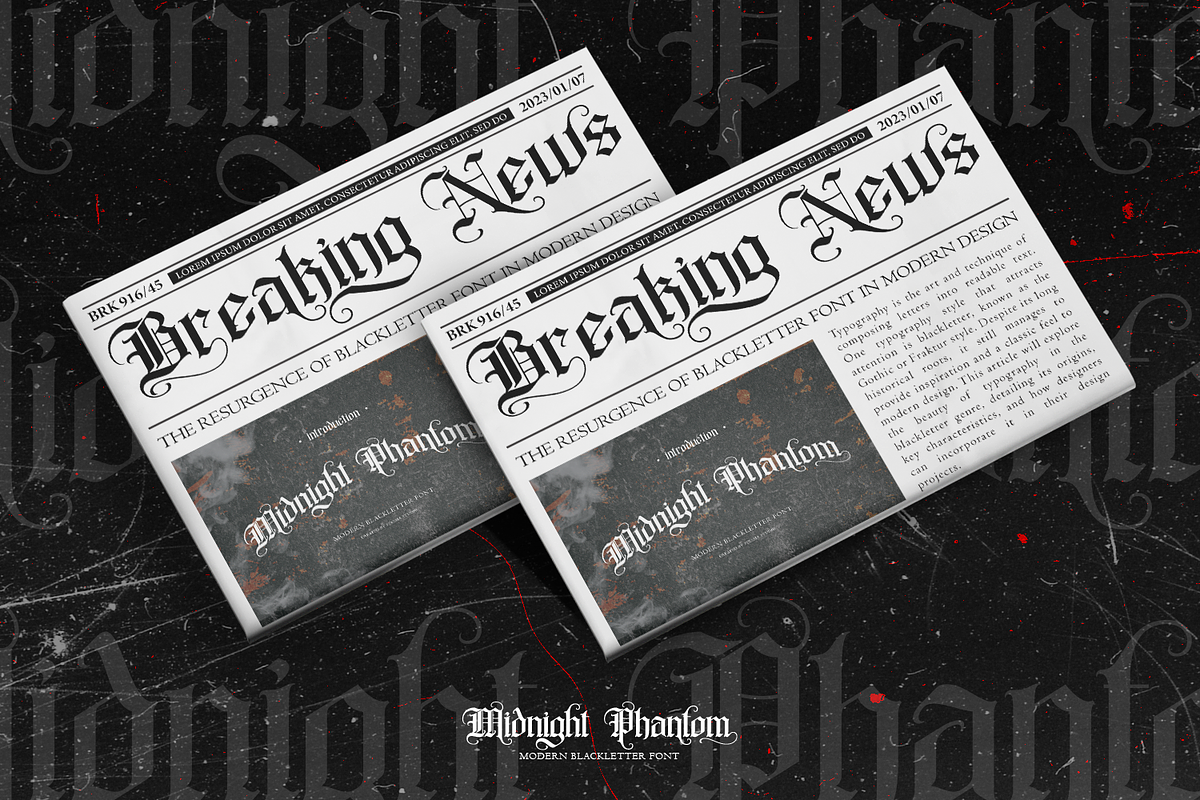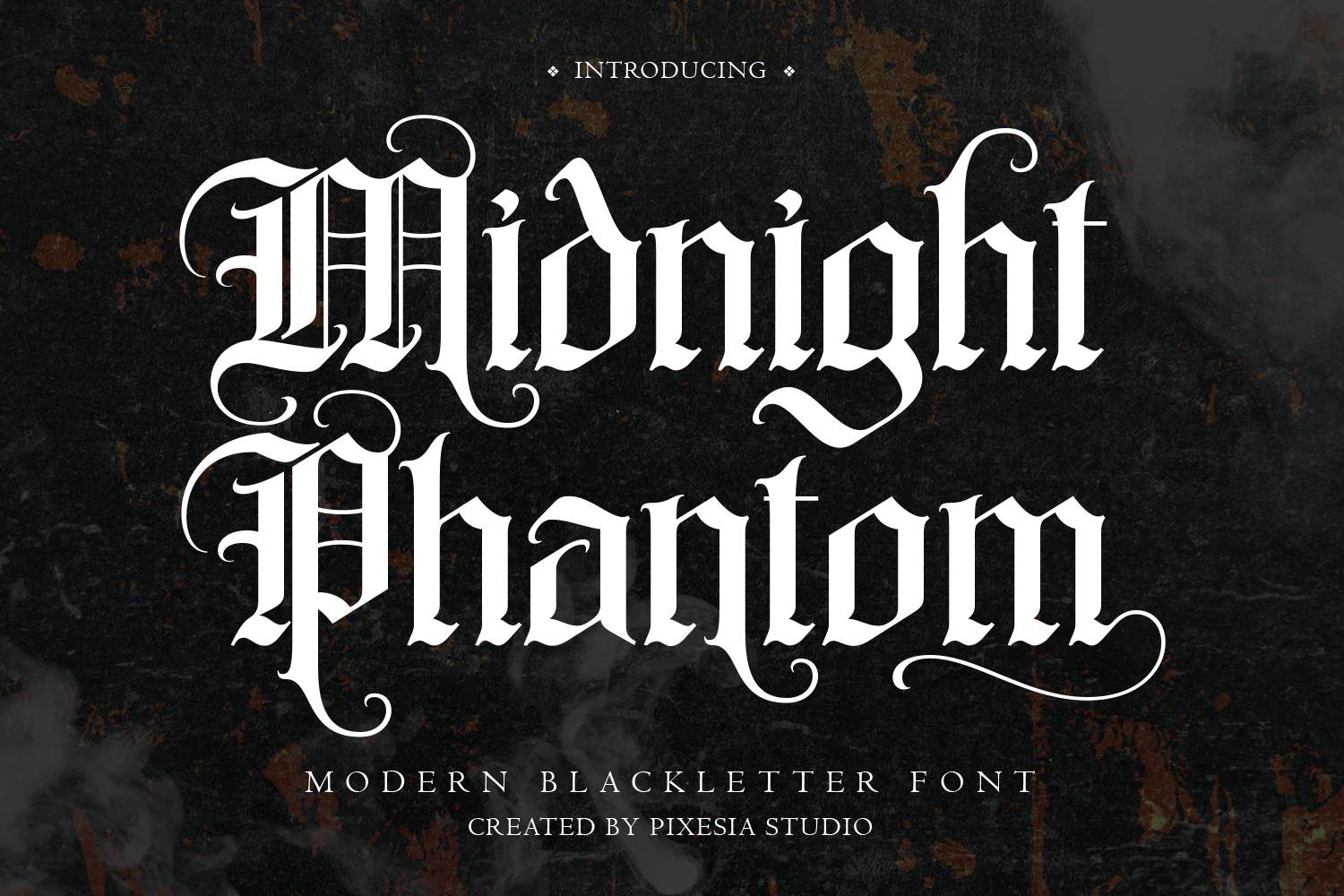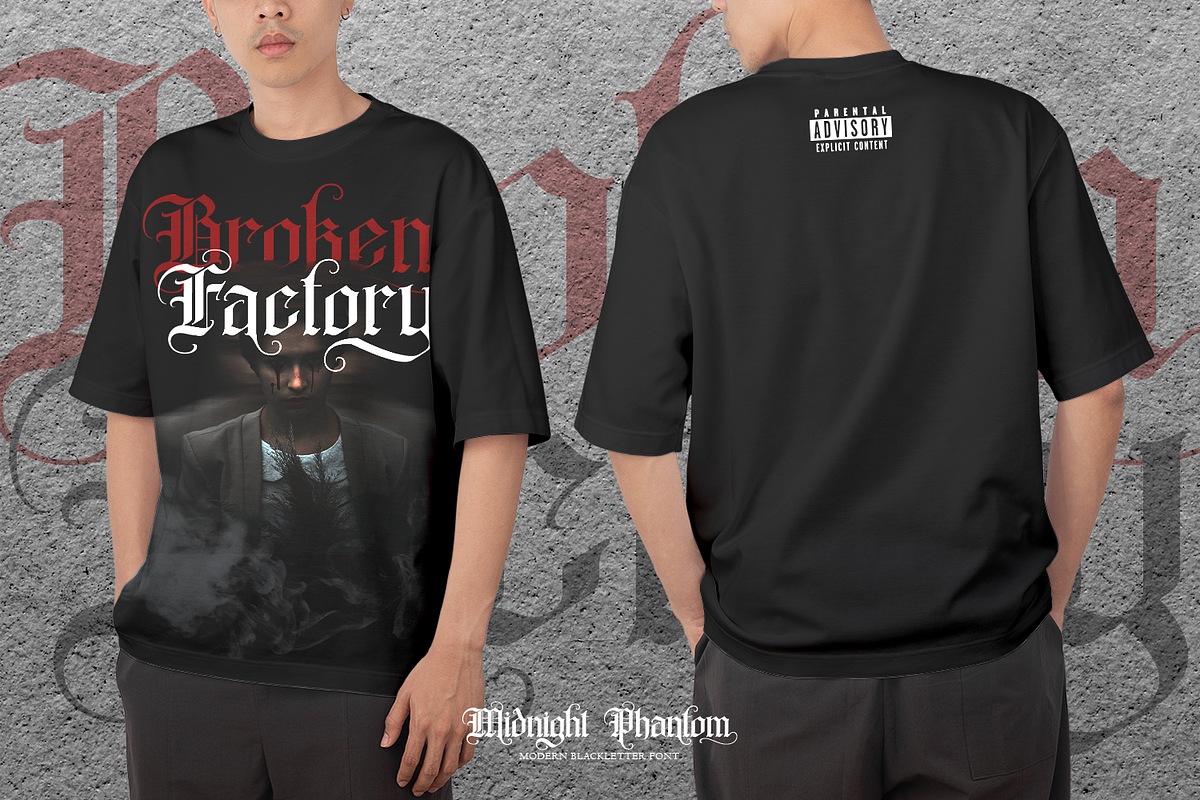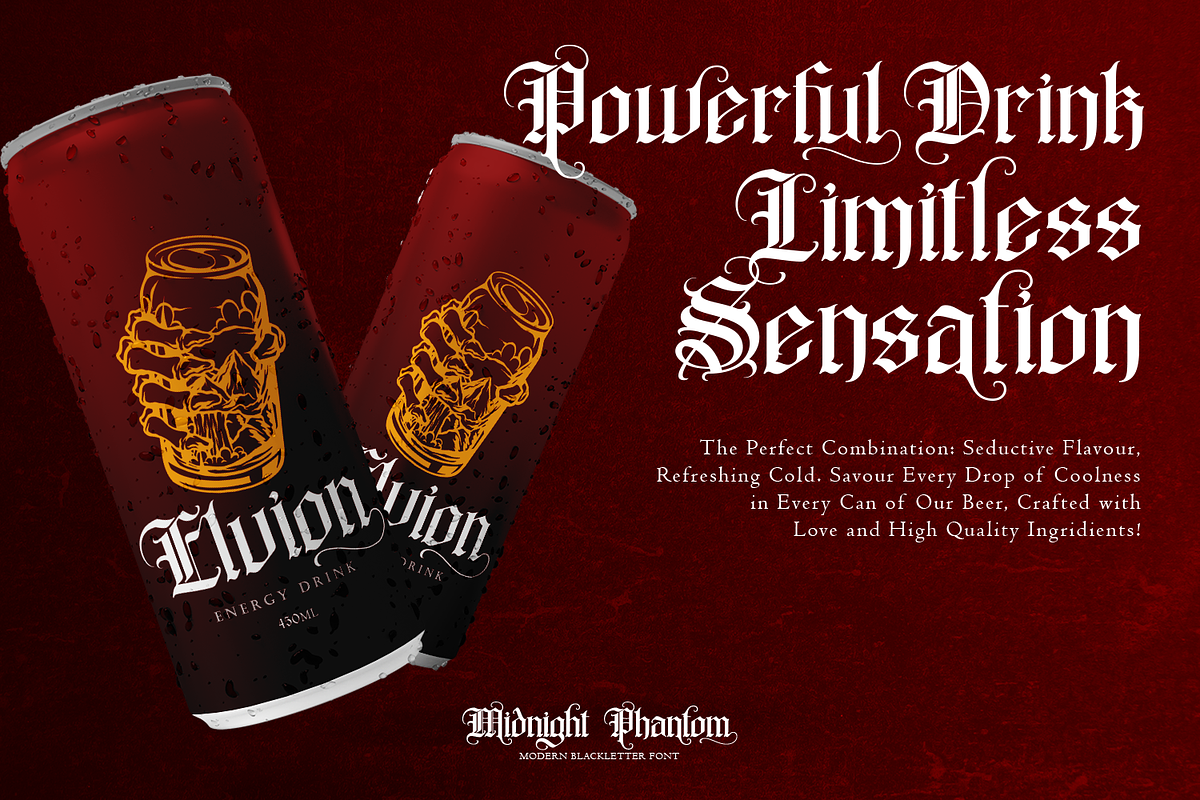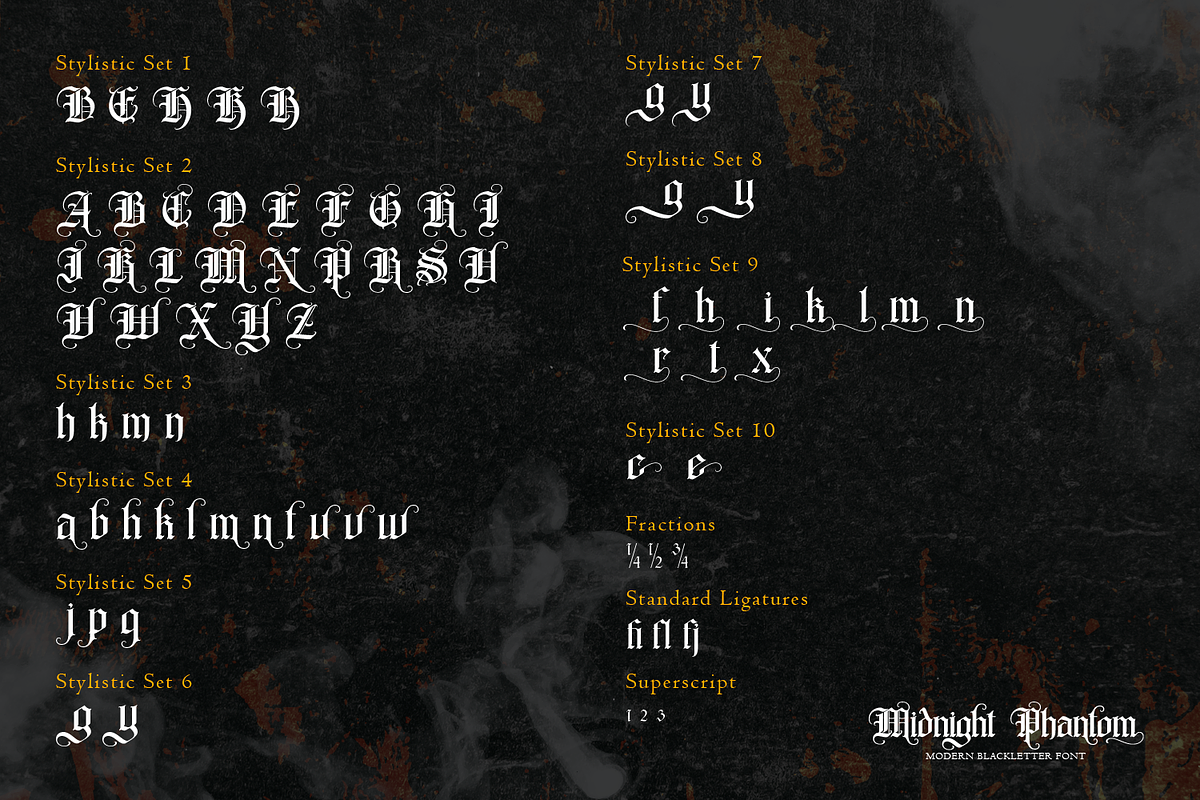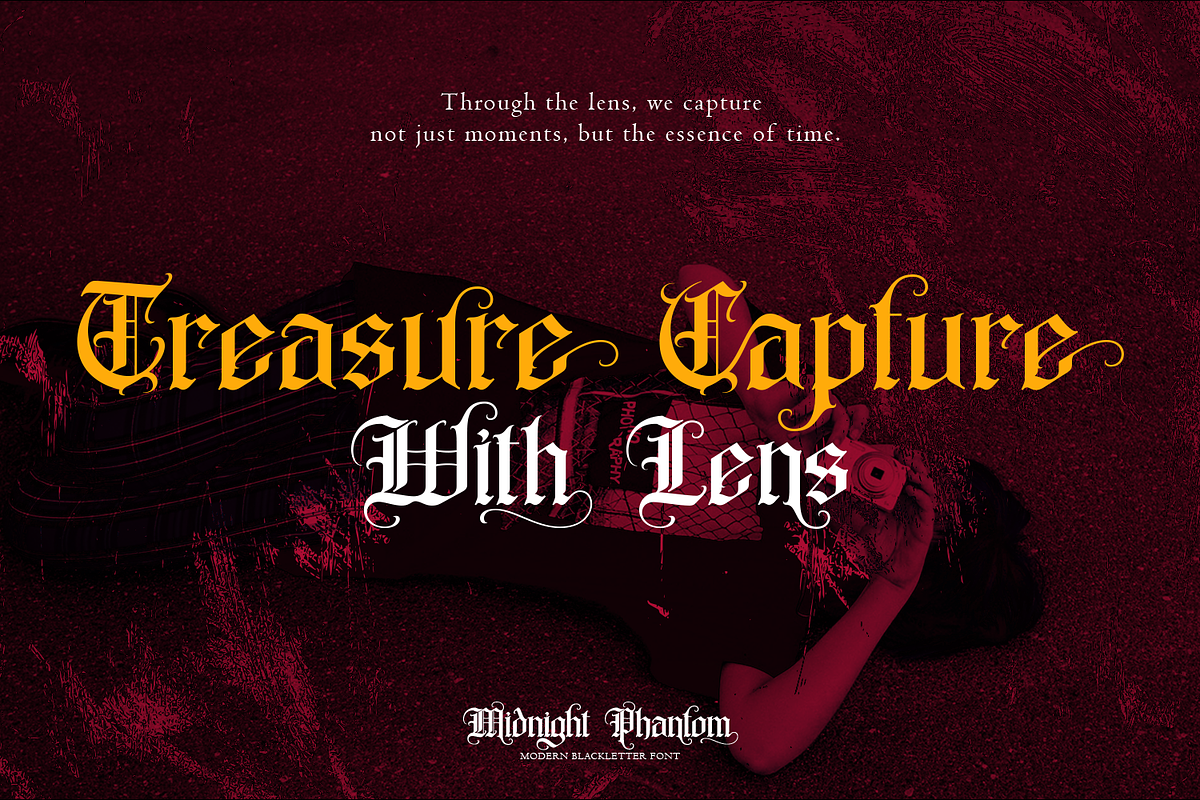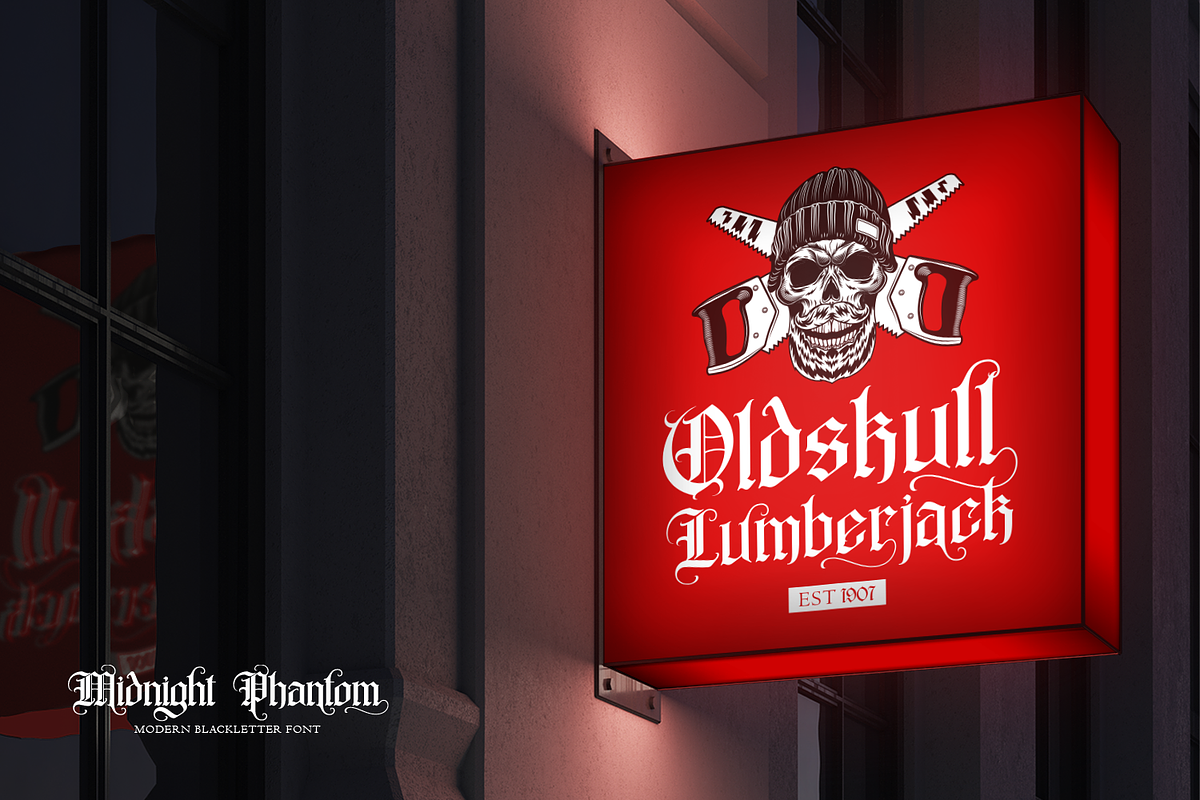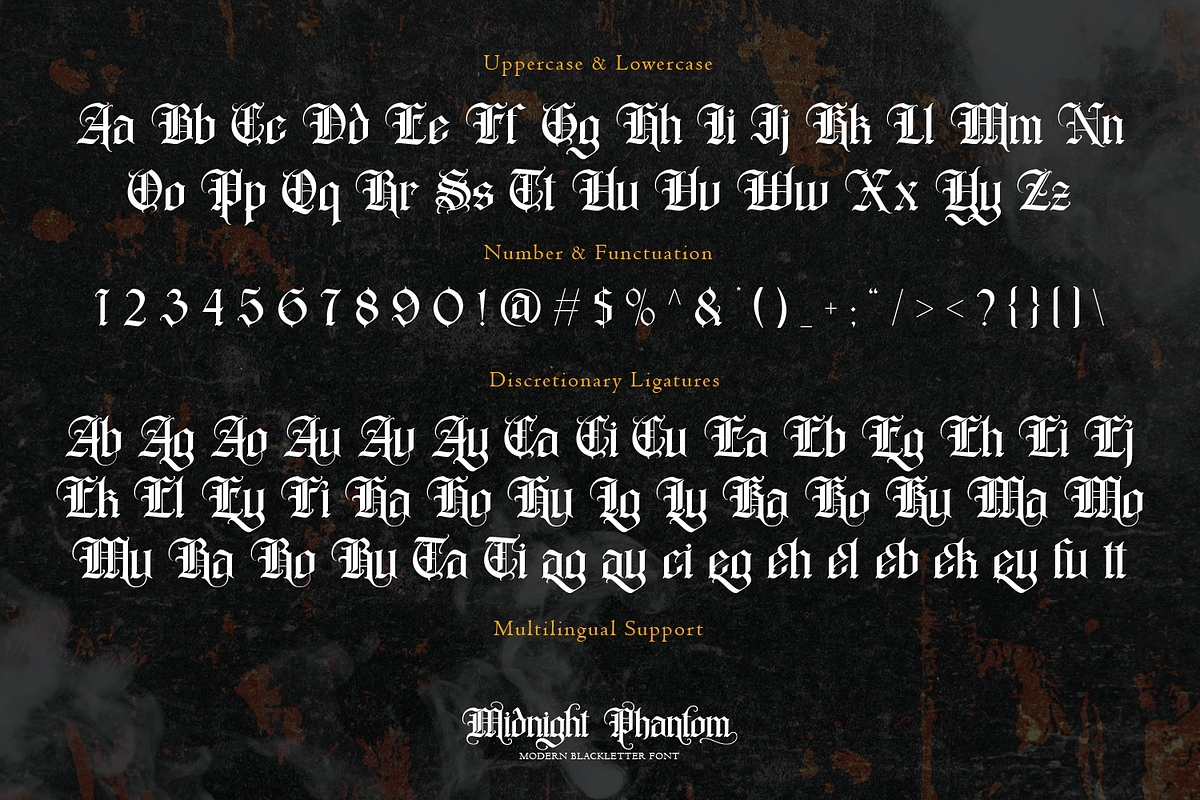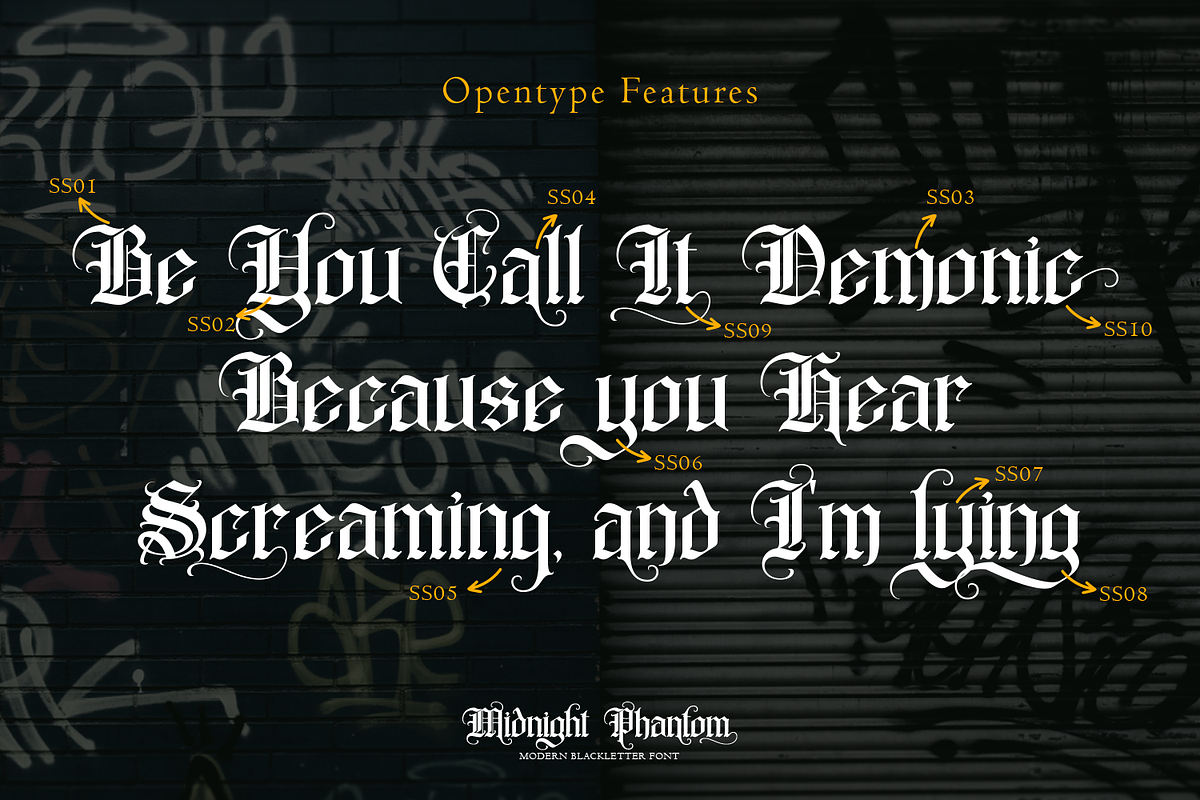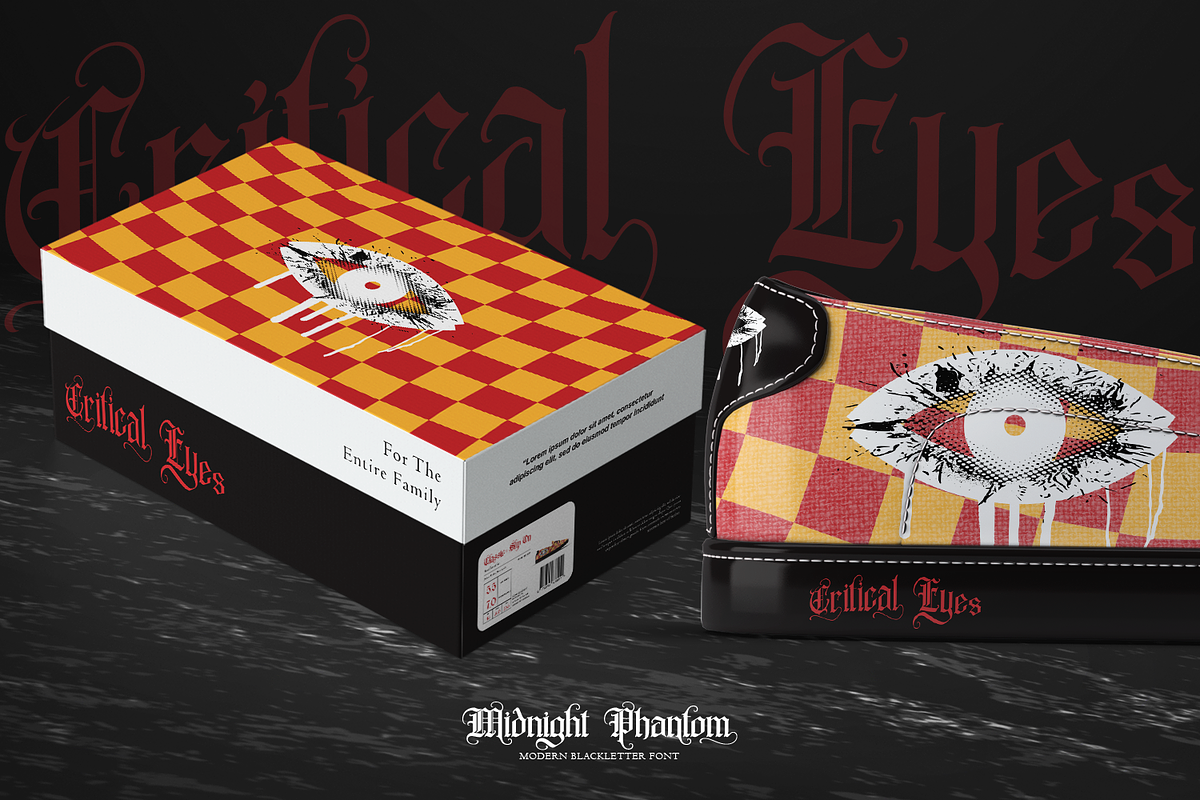
Midnight Phantom - Blackletter Font
Introducing Midnight Phantom - Modern Blackletter Font
Midnight Phantom is modern blackletter font that combines the classic elegance of traditional Gothic script with a bold and edgy twist. With its sleek and angular strokes, Midnight Phantom creates a unique and contemporary feel, while the bold weight and intricate swirls of the letters evoke the haunting beauty of a midnight phantom.
Midnight Phantom is perfectly ideal for use in branding, logotype, social media posts, advertisement, product packaging, label, photography, watermark, t-shirt, website design, invitation, stationery and any projects seeking a touch of old-world charm to the modern world.
- Multilingual Support including Afrikaans, Albanian, Basque, Catalan, Danish, Dutch, English, Estonian, Faroese, Filipino, Finnish, French, Galician, German, Icelandic, Indonesian, Irish, Italian, Malay, Norwegian Bokmål, Portuguese, Spanish, Swahili, Swedish, Zulu